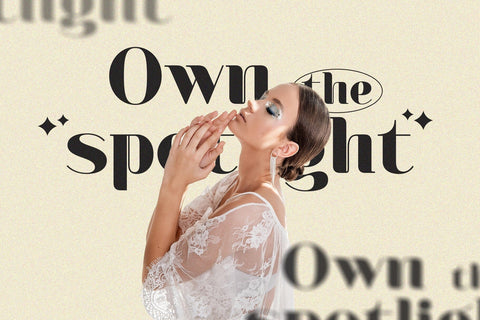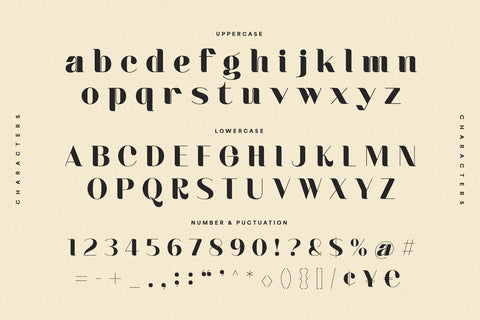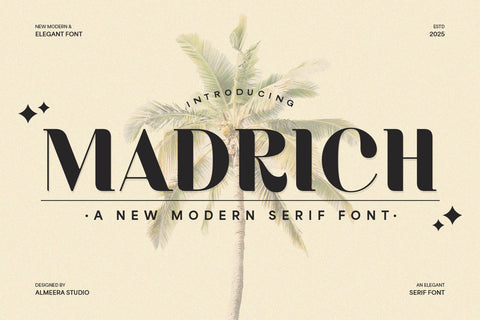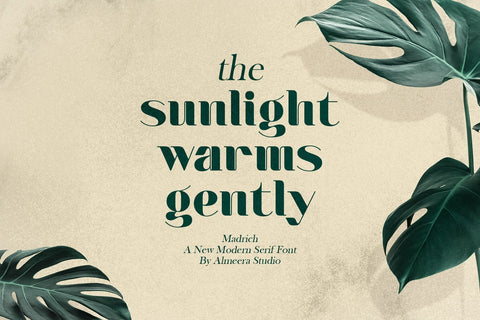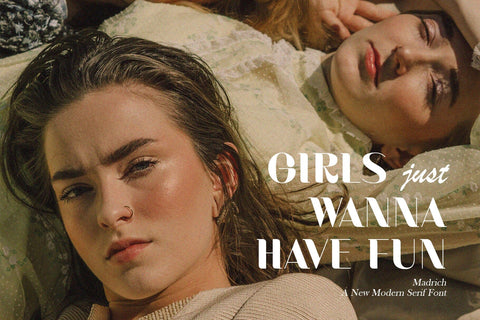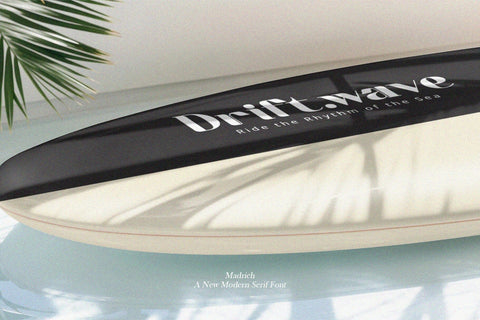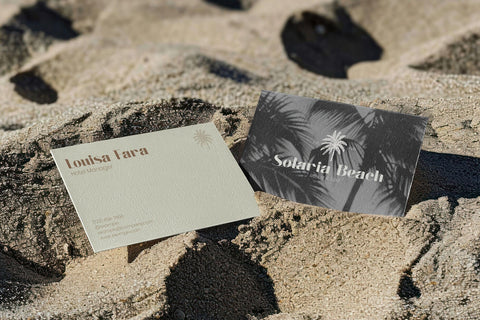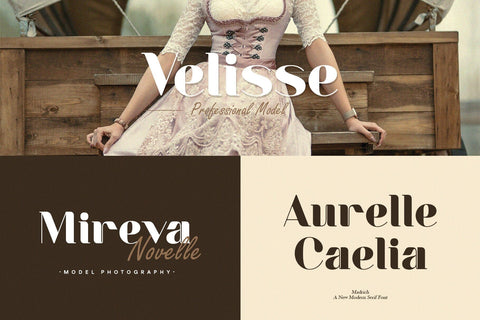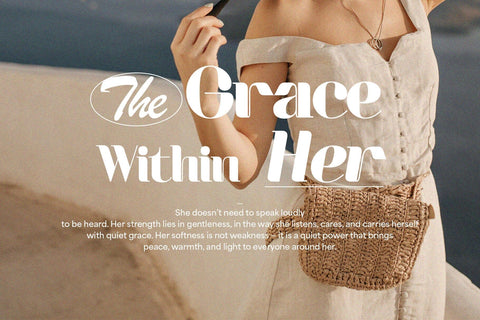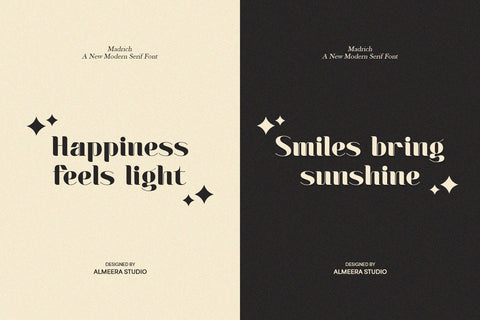
Madrich - Modern Serif Font
Introducing Madrich, a compelling new modern serif font that seamlessly blends classic elegance with a contemporary edge. This versatile typeface is perfect for branding, editorial layouts, fashion magazines, luxury product packaging, and digital content. Madrich features balanced proportions and sophisticated serifs that provide both exceptional readability and a commanding presence. Its refined design ensures a polished and professional look across all applications, from corporate identities to captivating headlines. Elevate your typography with Madrich, the ideal font for designers seeking a premium serif that is both impactful and gracefully current, promising to enhance any creative project with its inherent style.